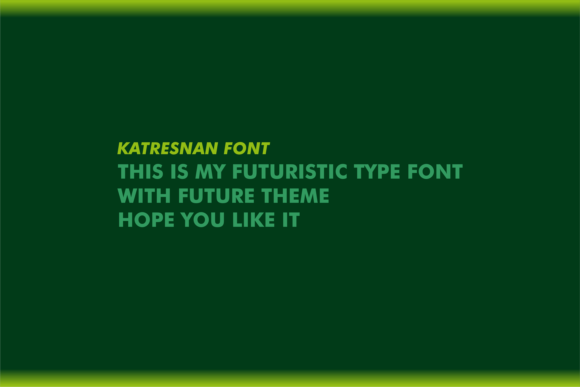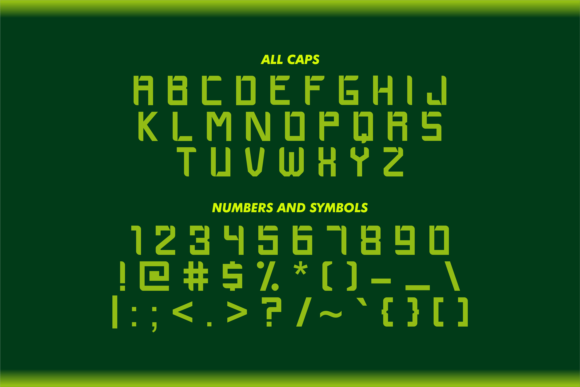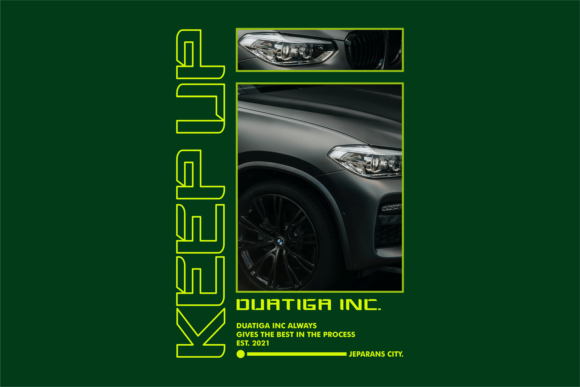
Introduction to Katresnan Font
Katresnan is a bold, thick lettered and robotic display font.
This font is ideal for writing web designs, business cards, or pretty much anything else that requires an assertive, modern touch .
Katresnan Font offers exceptional quality and versatility, making it a valuable addition to your design toolkit. Whether you’re creating for personal projects or commercial use, Katresnan Font delivers professional results.